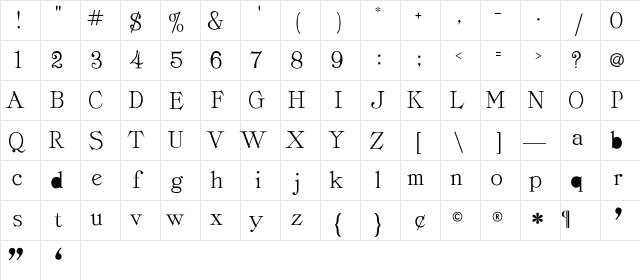
Cordella-Roman Regular
Design Context for Cordella-Roman
Cordella-Roman is a composed and adaptable typeface that performs quietly and consistently across a wide range of design contexts.